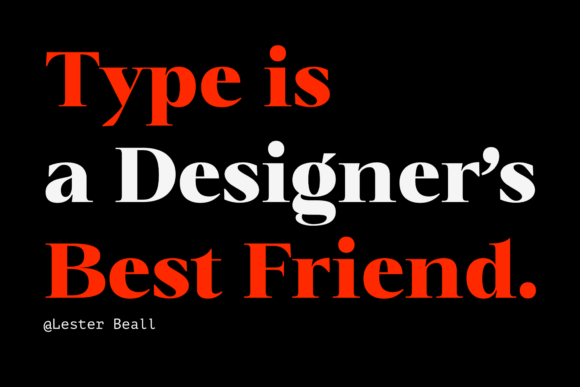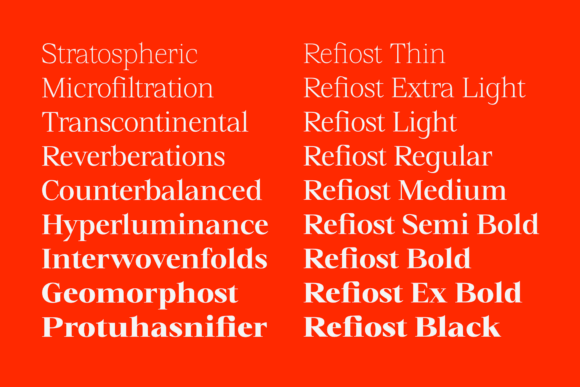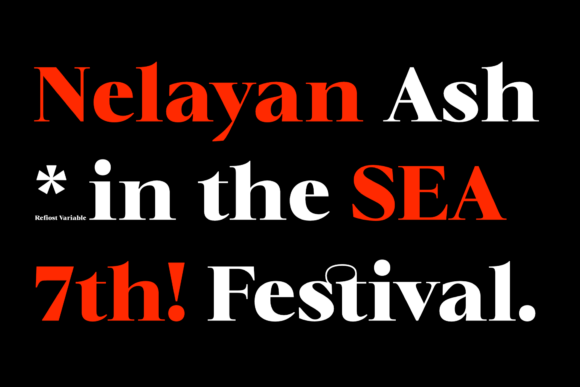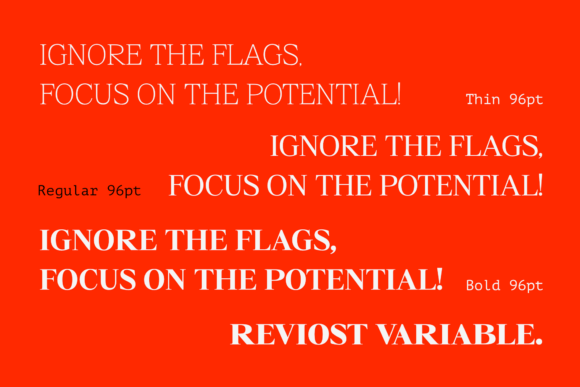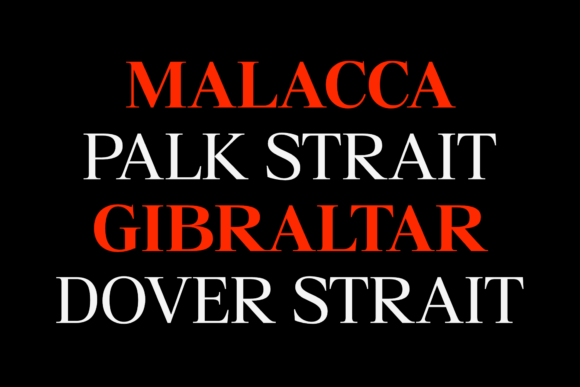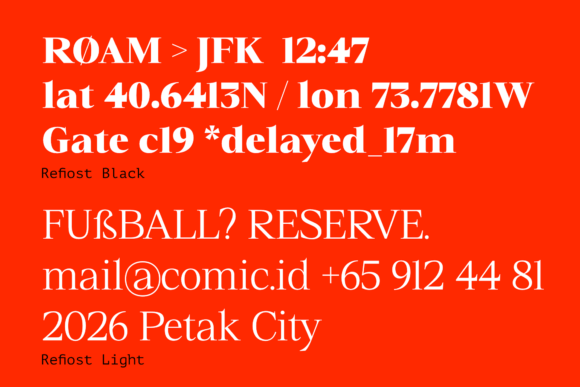
Introduction to Refiost Font
Have you ever been stuck on a creative project, struggling to find the perfect font to bring your vision to life? We’ve all been there – scrolling through design resources, searching for that elusive combination of style and legibility that sets our project apart. But what if you stumbled upon a font that not only meets, but exceeds your expectations? Enter the Refiost Font, a game-changing serif font that’s perfect for designers of all levels.
With its unique, minimalist design and high level of legibility, the Refiost Font is a versatile design resource that’s perfect for branding projects, logo designs, and even social media posts. Whether you’re working on a high-quality product packaging design or a creative project that requires a touch of elegance, the Refiost Font is an excellent choice. And the best part? It’s available for free download, making it an accessible resource for designers of all budgets.
So why is the Refiost Font so valuable for designers? For one, its transparent background and high-quality design make it a standout choice for any project. Plus, its unique style and versatility make it easy to combine with other design elements to create something truly one-of-a-kind. Whether you’re a seasoned pro or just starting out, the Refiost Font is an essential addition to any designer’s toolkit.
Key Features of Refiost Font
- High-quality design resource suitable for various creative projects, including digital art, graphic design, and typography.
- Features a unique, modern design with a transparent background, allowing for seamless integration into any project.
- Perfect for designers and artists seeking a modern, high-quality font to elevate their creative project.
Honest Review: Refiost Font
I recently came across the Refiost Font, and I must say it’s been a great addition to my design resource collection. With its unique style and high quality, I can see it being used in a variety of creative projects.
One thing that stands out about the Refiost Font is its transparent background, which makes it easy to use in complex designs without any visual clutter. This feature alone makes it a valuable resource for designers.
- High quality font with a unique style
- Transparent background for easy design integration
However, I do have a few limitations to mention:
- ⚠️ Limited font sizes available
- ⚠️ Not as versatile as some other fonts in my collection
Overall, I’m impressed with the Refiost Font and think it’s a great addition to any designer’s collection. With a little creativity, it’s easy to see how it could be used in a variety of creative projects. I’d definitely recommend it to fellow designers.
Tips for Getting the Most Out of Refiost Font
To get the most out of the Refiost Font, use it with a transparent background to create a unique and eye-catching design. You can also experiment with different font sizes, colors, and styles to achieve the desired effect.
The Refiost Font is perfect for various creative projects, such as branding, marketing materials, and social media graphics. It’s also great for creating custom typography for websites, presentations, and other digital content.